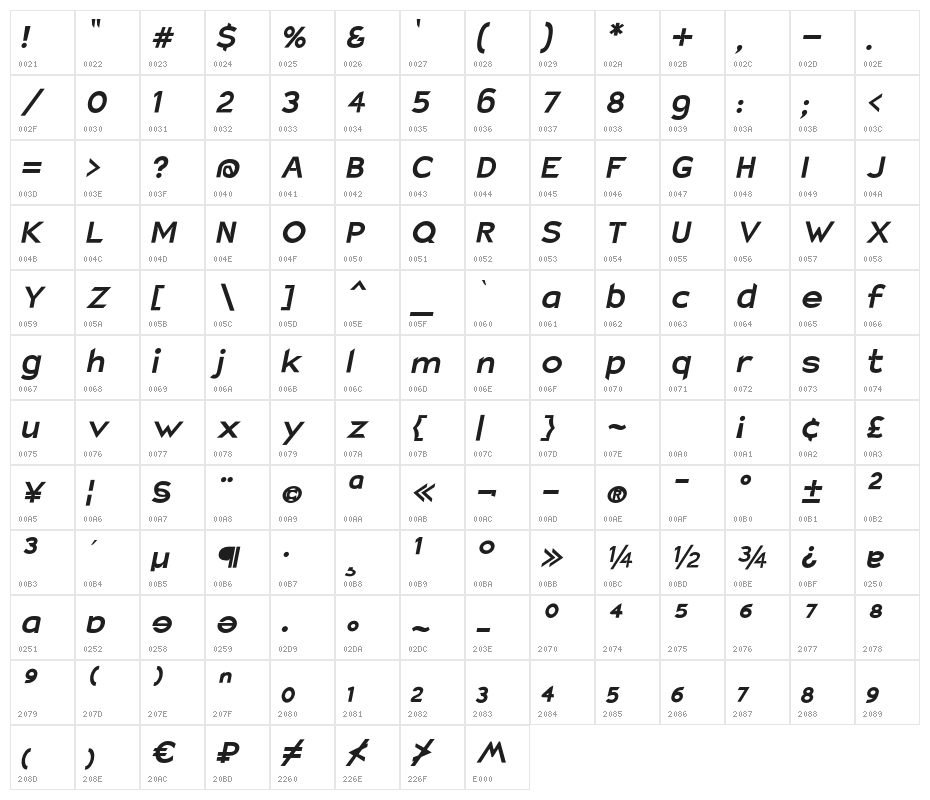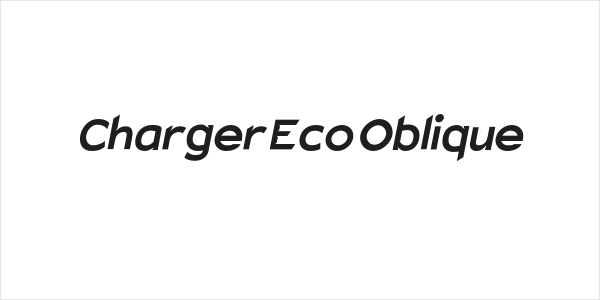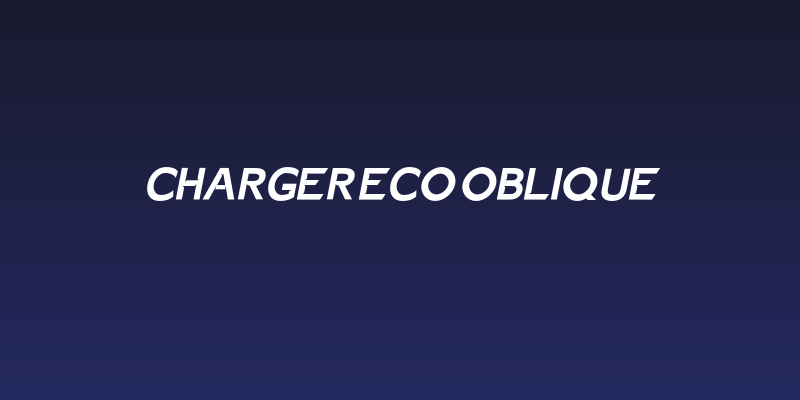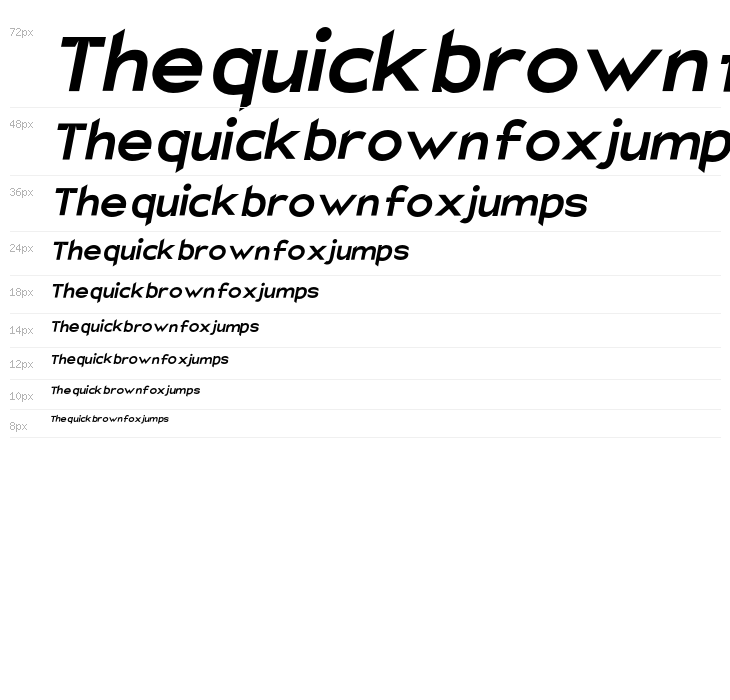
Charger Eco Oblique Font
Charger Eco Oblique Description
This font features a dynamic and modern oblique style, characterized by its forward-leaning posture that conveys a sense of motion and energy. The uppercase and lowercase letters maintain a consistent slant, enhancing readability while adding a sleek, contemporary feel. The numerals and special characters are designed with the same oblique angle, ensuring uniformity across all glyphs. The strokes are smooth and slightly thick, providing a medium contrast that balances boldness with clarity. This font's design is both versatile and stylish, making it suitable for a wide range of applications.